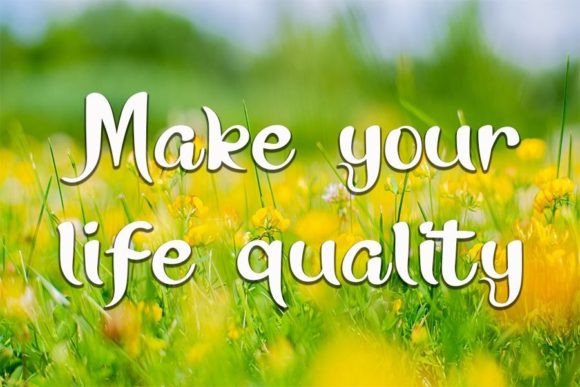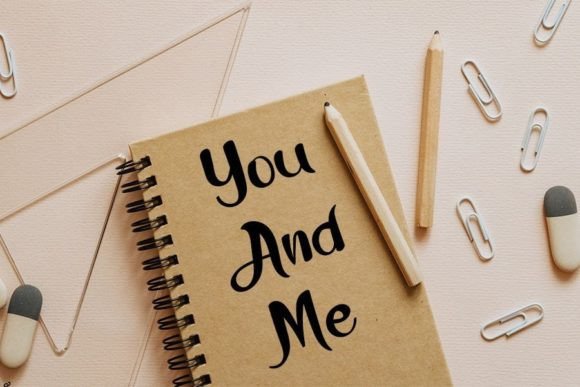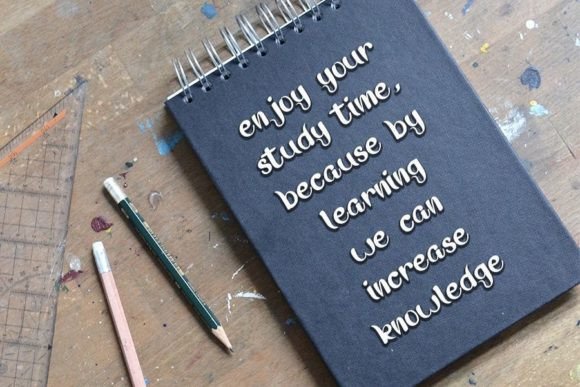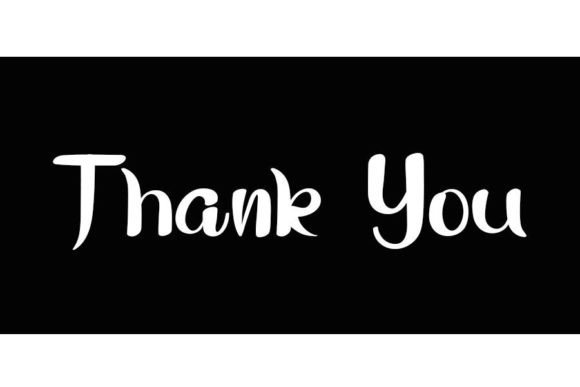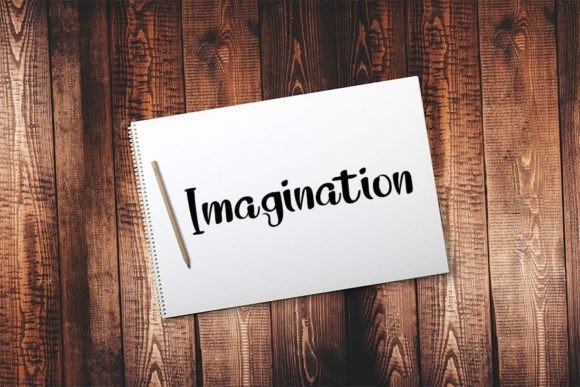
Handmade Scratch Font
About Handmade Scratch Font
Handmade Scratch is a delightful handwritten font, thoughtfully crafted to secure its place as a cherished favorite in the realm of typography. With a harmonious blend of classy calligraphic influences and a contemporary, fresh feel, this font brings a unique character to your creative projects. By incorporating Handmade Scratch into your designs, you have the opportunity to infuse them with a distinctive charm that elevates their overall appeal.
The friendly and approachable nature of Handmade Scratch stems from its handwritten style, adding a personal touch to your creations. Its balance between classic calligraphy and modern elements ensures a timeless yet relevant aesthetic, making it well-suited for a diverse range of applications.
Whether you’re working on invitations, branding, logos, or any creative endeavor, Handmade Scratch proves to be an excellent choice. Its friendly and classy demeanor adds sophistication to your projects, setting them apart and making them truly outstanding.
Invitations take on a charming quality with the addition of Handmade Scratch, as its calligraphic influences convey a sense of elegance and celebration. The font seamlessly integrates into branding projects, allowing your identity to emanate a unique personality that resonates with your audience.
Logos crafted with Handmade Scratch become memorable and distinctive, thanks to its carefully designed characters that capture attention and leave a lasting impression. The font’s versatility extends to various creative applications, making it a valuable asset in your design toolkit.
In summary, Handmade Scratch is not just a font; it’s a design companion that brings a perfect blend of friendliness, class, and contemporary style to your creative projects. Its carefully considered design ensures that it remains a true favorite, standing the test of time while making your work outstanding. Embrace Handmade Scratch, and let its charm enhance the beauty of your designs, making them truly remarkable in the eyes of your audience.